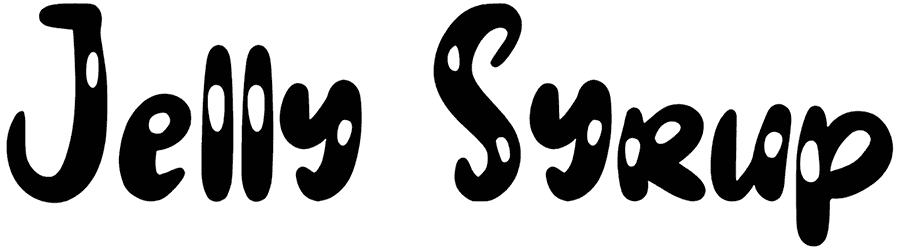
Jelly Syrup Font
When you look at the Jelly Syrup font, its fantastic style immediately seems interesting to you. This cartoon font has bold letters with a texture in the opposite color, which appears entertaining. The Jelly Syrup has a…
When you look at the Jelly Syrup font, its fantastic style immediately seems interesting to you. This cartoon font has bold letters with a texture in the opposite color, which appears entertaining.
The Jelly Syrup has a fun feeling and can be helpful for various cases, such as cartoons, animations, and every other product designed for children. Moreover, this candy font’s bold letters have smooth edges that make it memorable for your audience.